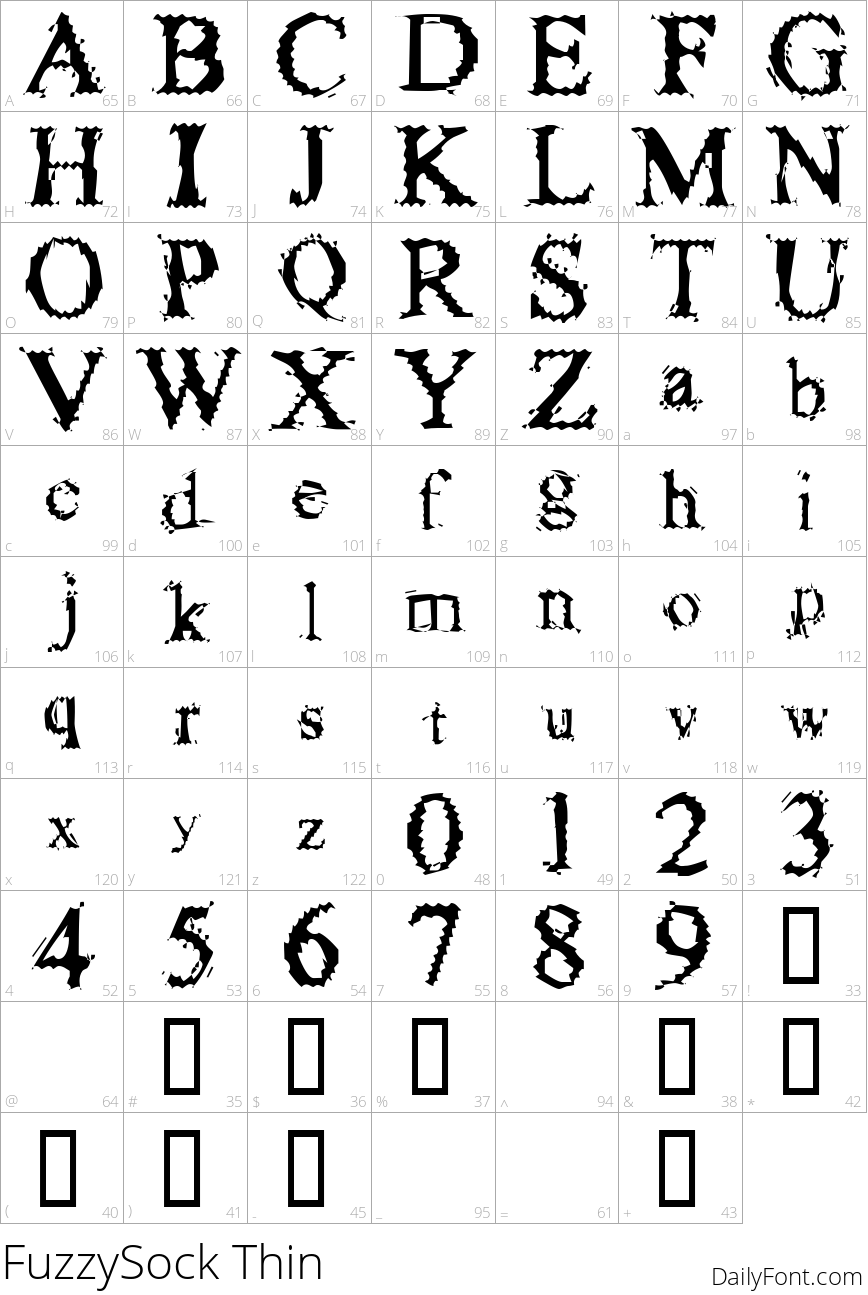
FuzzySock Thin
Jagged, torn-edge serif caps with a weathered grunge texture
FuzzySock Thin takes a classic serif letterform and roughs it up - every stroke looks torn, chipped, or worn down at the edges, like old parchment or a weathered wood sign. Both the uppercase and lowercase carry the same jagged texture, so the distressed look holds together across a full line of text instead of fading out in lowercase the way some grunge fonts do.
That torn-edge texture makes it a natural fit for horror movie posters, heavy metal flyers, haunted house signage, or any label that wants to look aged and battle-worn - think old west wanted posters, pirate maps, or distressed product labels. Because the letterforms are still fully legible serif shapes underneath the texture, it works at both large display sizes and smaller body text.
For contrast, pair it with a clean, plain sans-serif for supporting text so the distressed serif stays the focal point.